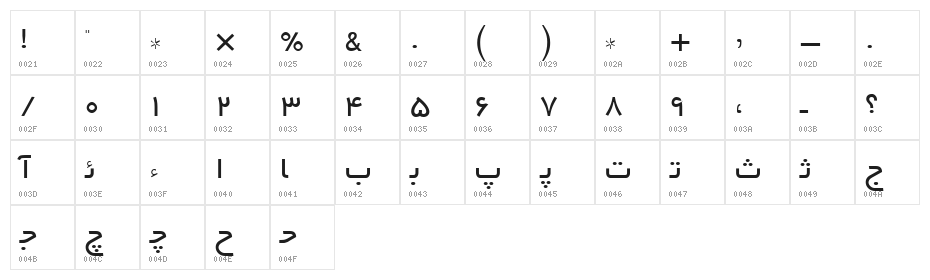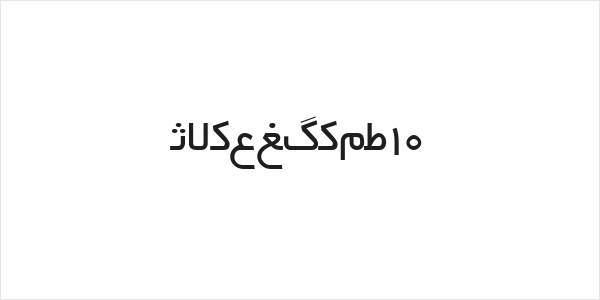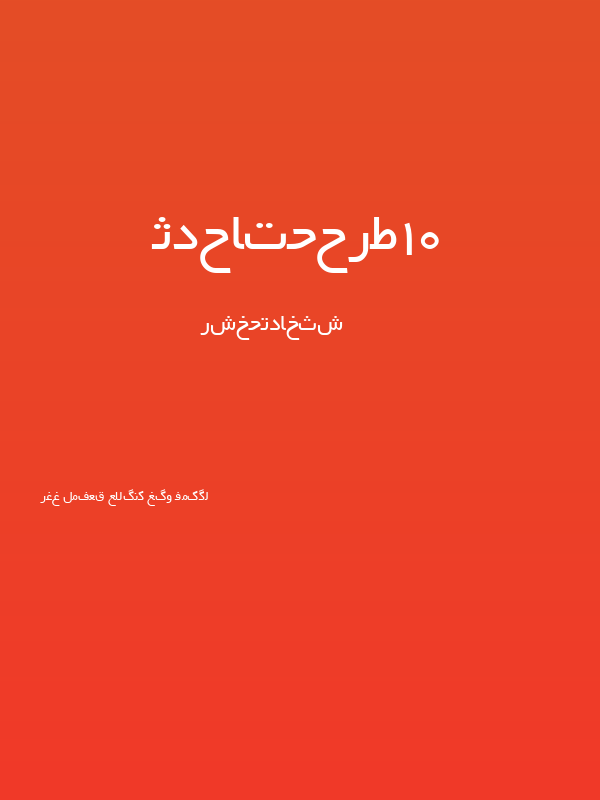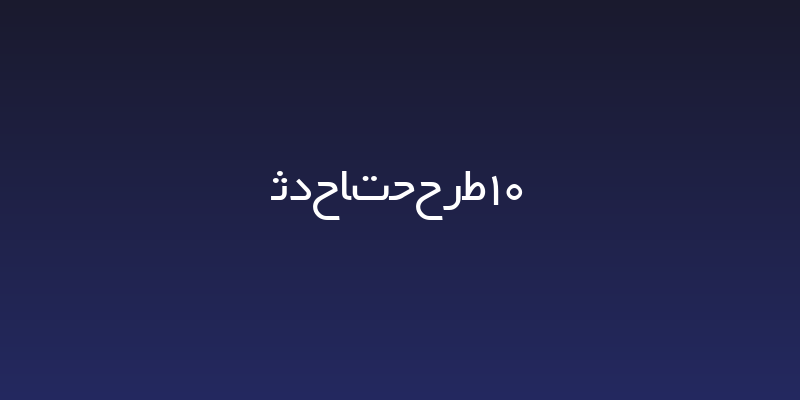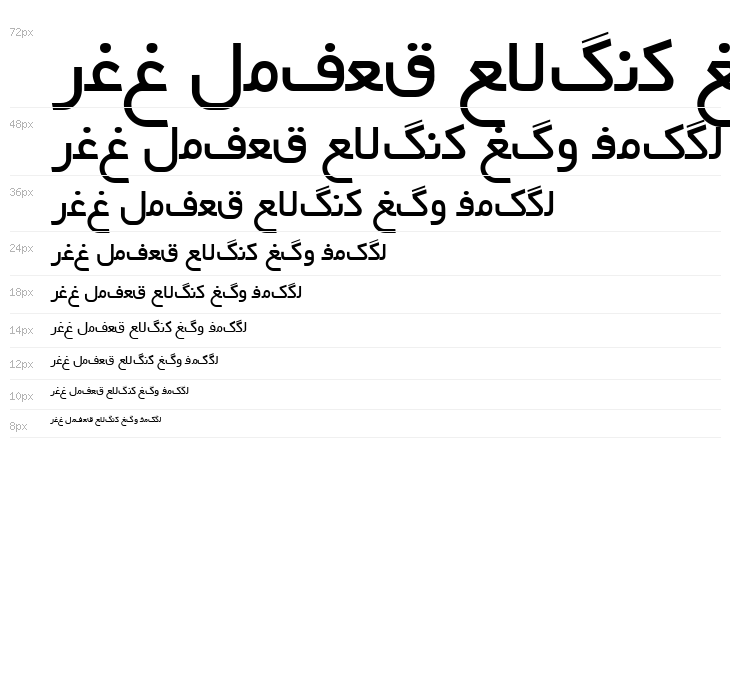
Irnafont_10 Font
Irnafont_10 Description
This font features a modern and clean design with a focus on simplicity and readability. The characters are bold and rounded, giving them a friendly and approachable appearance. The strokes are consistent in width, providing a uniform look across all characters. The font includes a full set of Arabic characters, numerals, and a variety of punctuation marks. Its design is well-suited for both digital and print media, offering versatility in various applications. The spacing between characters is balanced, ensuring legibility even at smaller sizes.
| Use Case | Headlines, Logos, Digital content |
| Proposed Projects | Ideal for branding, advertising, digital content, and print media where a modern and approachable look is desired. |